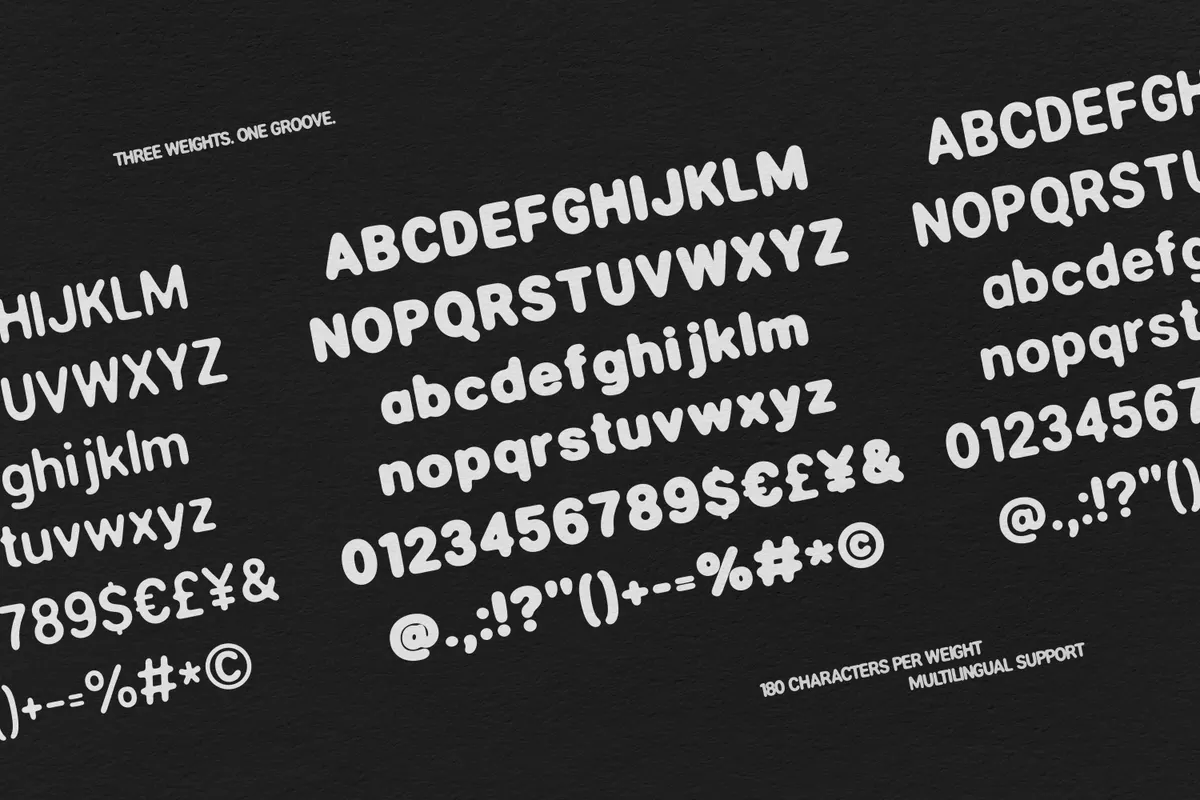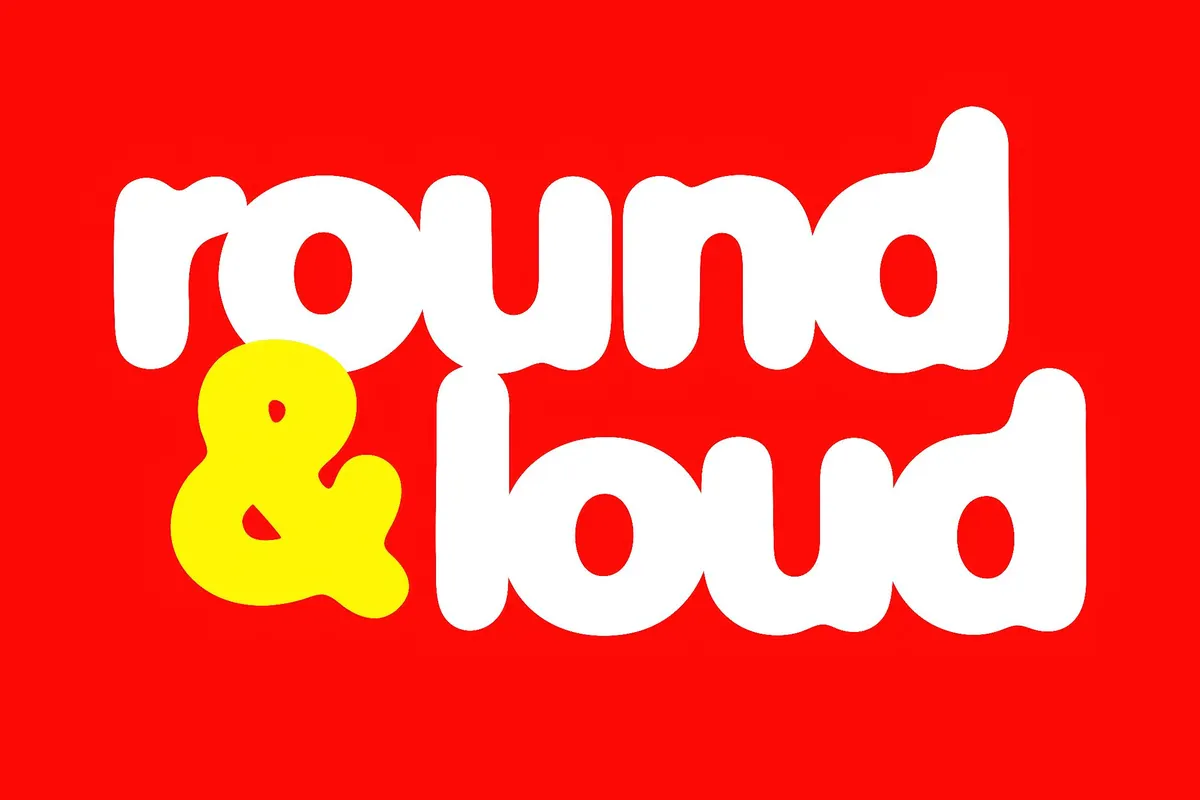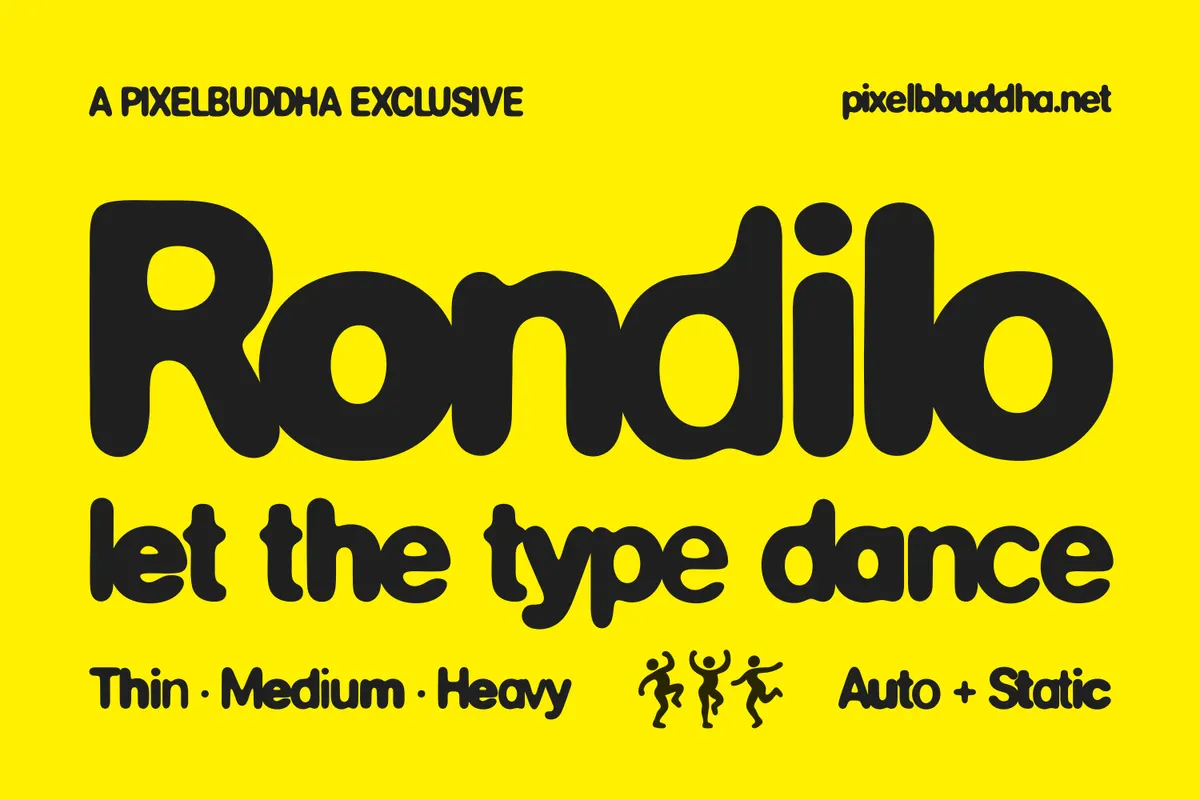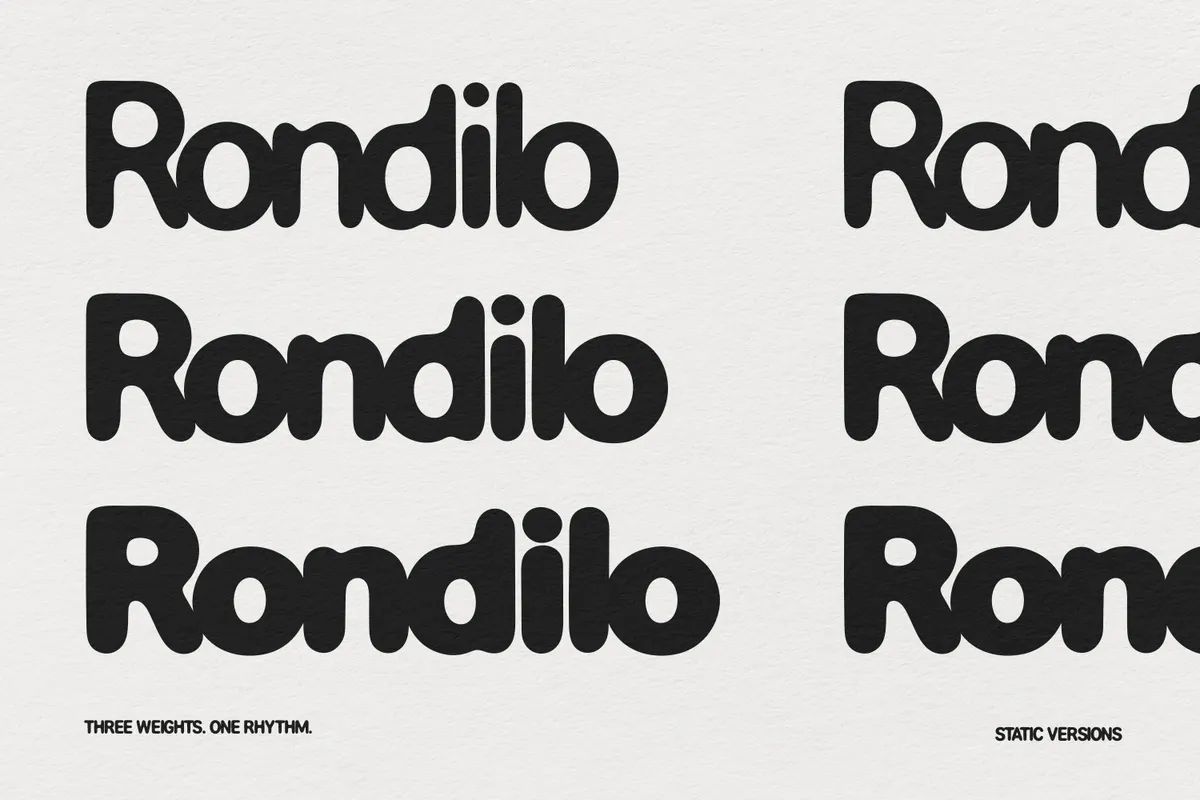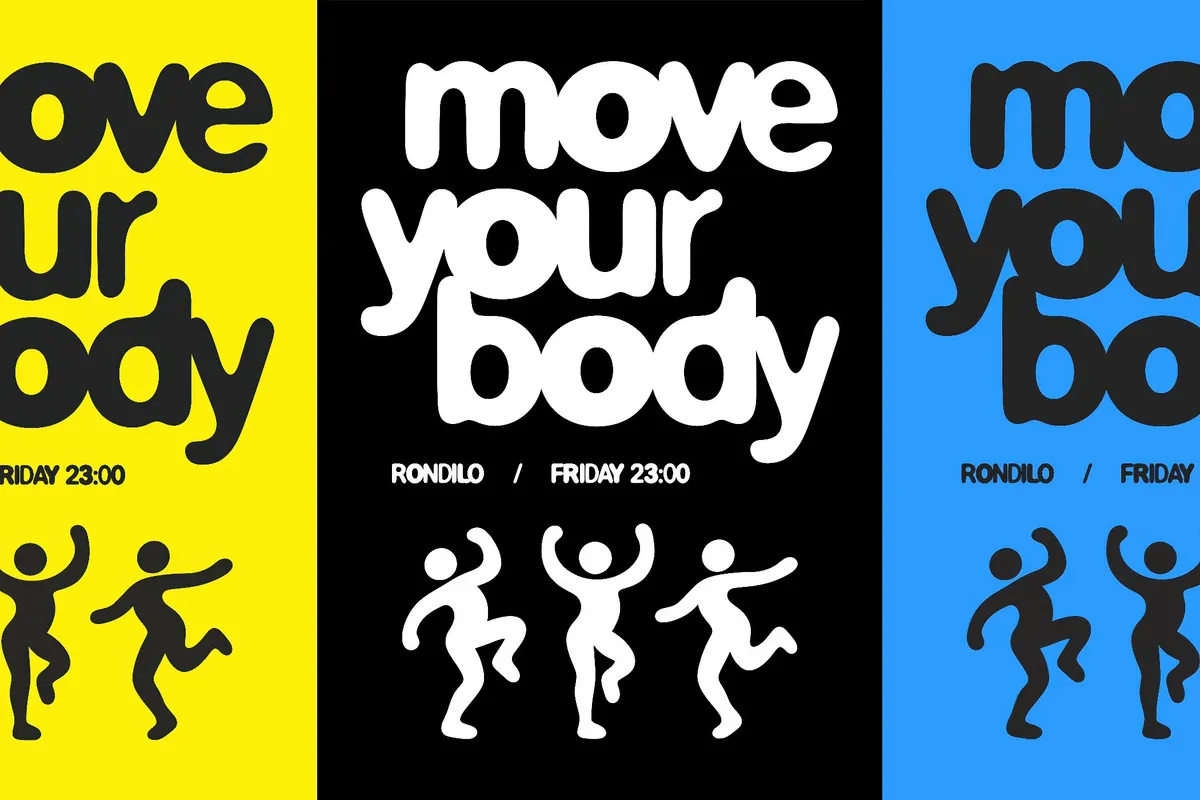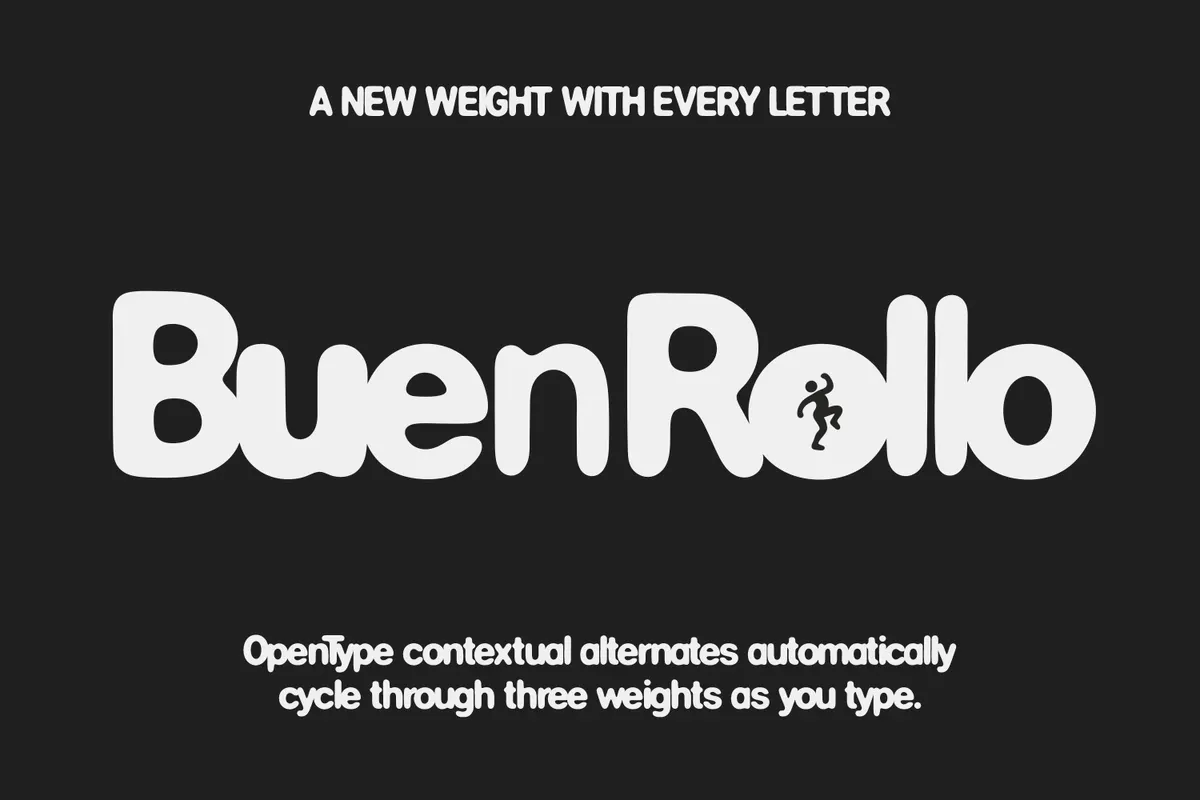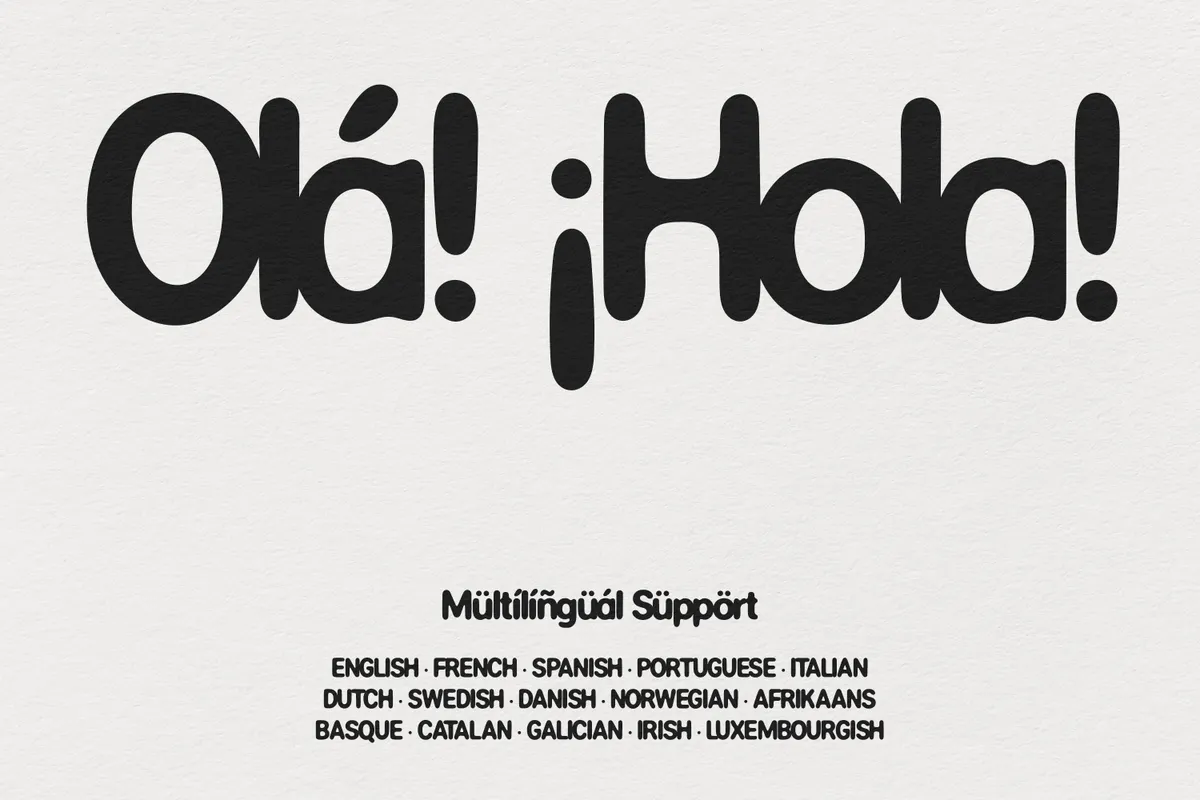
Rondilo – Playful Rounded Display Font
Rondilo is a rounded display font built on one soft skeleton, three stroke weights, and a fourth file that does the switching for you. The curves bring back the street culture, gumball-machine signage, and comic-strip title lettering — fat terminals, shallow joins, and a large x-height that packs lowercase words into a solid block. Auto is the one to try first: with contextual alternates on, stroke weight changes letter by letter as you type, so a single word arrives already bouncing.
- 4 styles: Thin, Medium, Heavy and Auto;
- 180 characters per style: uppercase, lowercase, numerals, punctuation, symbols, and currency ($ € £ ¥ ¢);
- OpenType contextual alternates in Auto — automatic weight change while you type;
- stylistic sets ss01–ss03 for manual weight control;
- kerning and case-sensitive punctuation in all four styles;
- multilingual Latin: 15 languages.
What Auto does
The Auto file holds the whole character set four times over — 714 glyphs in one font. Contextual alternates walk a four-step loop as you type: Medium, Heavy, Medium, Thin. The loop restarts at every space, so each word opens at the same weight, and the wave inside it lands the same way twice, which is what keeps two lines of a headline rhyming instead of fighting. Turn contextual alternates off in the type panel and plain Medium comes back.
Three weights on one skeleton
The static weights step evenly. A lowercase l measures 133, 167 and 203 units on a 1000-unit em, so every jump adds the same 34 units of stroke. Widths grow with the weight — an o runs 525, 559 and 596 units — so moving a line from Thin to Heavy reflows it instead of swapping in place. Cap height sits at 748 and x-height at 535, around 72 percent of caps, which is why lowercase settings are almost as loud as all-caps ones.
Where you take over
Three stylistic sets override the automatic rhythm inside the Auto file: ss01 sets a selection Thin, ss03 sets it Heavy, ss02 returns it to the default weight. Apply one to a single letter and the rest of the word keeps cycling, which is how you fix the one stem that lands wrong in a logo. The case feature lifts parentheses by 54 units and the middle dot by 107 for all-caps lines, and kerning ships in all four files.
- Music and events — gig posters, club flyers, festival branding, album covers, single artwork.
- Packaging design — snack labels, soda cans, toy packaging, candy wraps, cosmetics.
- Branding and logos — record labels, juice bars, kids' brands, streetwear studios.
- Editorial and social — feature headlines, quote cards, story templates, announcement posts.
- Merchandise — tees, tote bags, stickers, enamel pins, poster prints.
Auto is one file that changes weight on its own as you type, cycling Medium, Heavy, Medium, Thin and restarting at each space. Thin, Medium, and Heavy are ordinary single-weight fonts that hold one stroke width until you change it. The drawing is identical across all four.
Yes. The Auto file holds three stylistic sets — ss01 for Thin, ss03 for Heavy, ss02 back to the default. Select one letter, apply a set, and the rest of the word keeps its automatic rhythm.
English, French, Spanish, Portuguese, Italian, Dutch, Swedish, Danish, Norwegian, Afrikaans, Basque, Catalan, Galician, Irish and Luxembourgish, with 60 accented characters in every style. Central European, Turkish, Cyrillic, and Greek are outside the set, and there is no eszett, so German text needs a fallback.